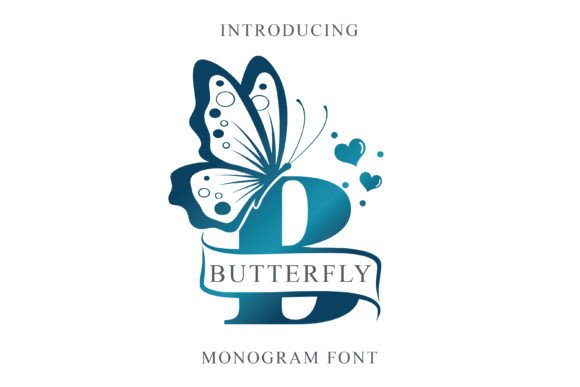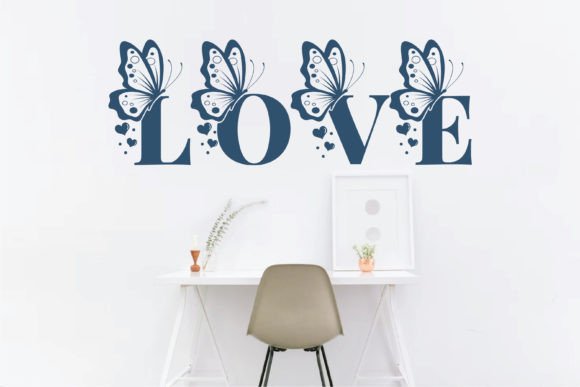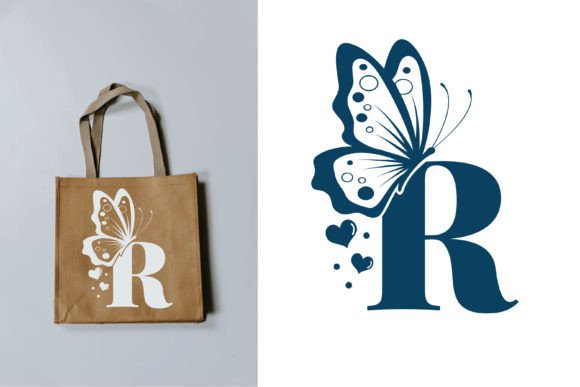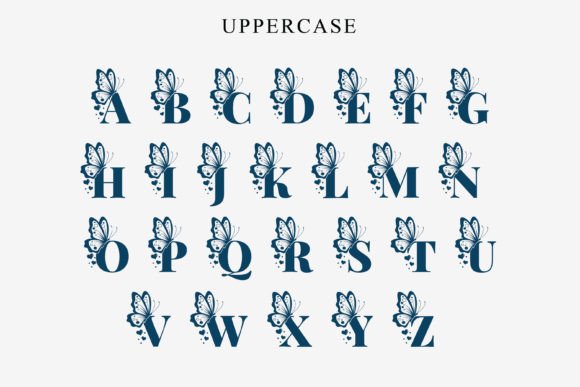
Butterfly Monogra Font
About the Butterfly Monogra Font
Add a touch of class to your work with the Butterfly Monogra Font, a truly exceptional typeface. Butterfly Monogram is a new elegant decorative font, featuring lovely ornaments. Fall in love with its authentic feel and use it to create gorgeous stationary art, eye-catching social media posts, and cute greeting cards.
Butterfly Monogram’s elegant decorative style is ideal for projects requiring a touch of vintage charm. It excels in headlines, logos, short text blocks on invitations or packaging, and social media graphics where its ornate details shine. However, its decorative nature makes it unsuitable for body text or UI elements; readability suffers at smaller sizes or within longer passages.
Pair it with a clean sans-serif like Lato for a balanced contrast, or a classic serif such as Garamond for a more traditional feel. For a more playful outcome, a script font like Pacifico can add a whimsical touch.
The font projects a sophisticated, slightly romantic personality, suitable for brands focused on beauty, fashion, or artisanal goods. Its decorative elements convey a sense of quality and handcrafted detail.
Butterfly Monogra Font Usage Examples
Butterfly Monogra Font Example